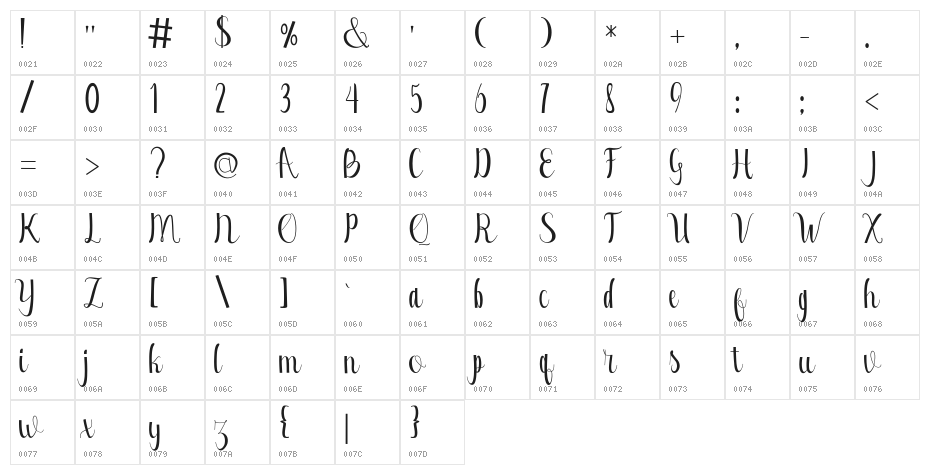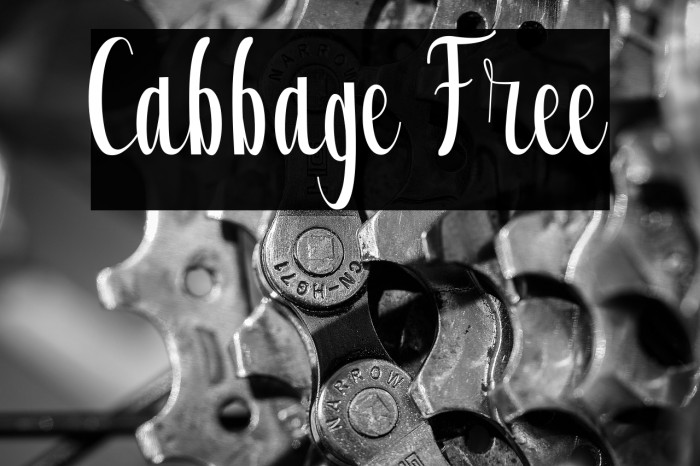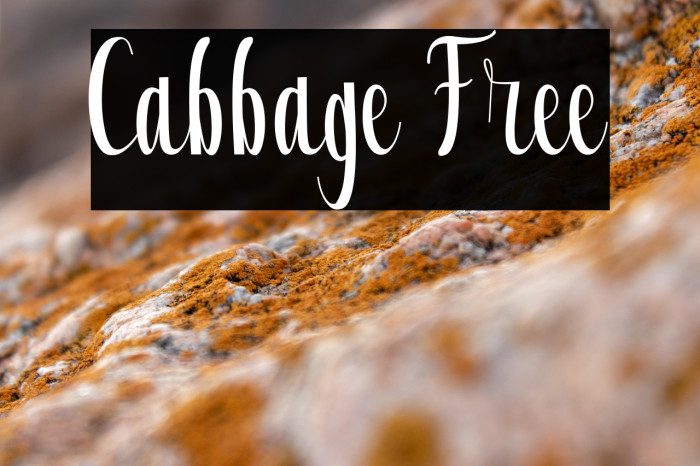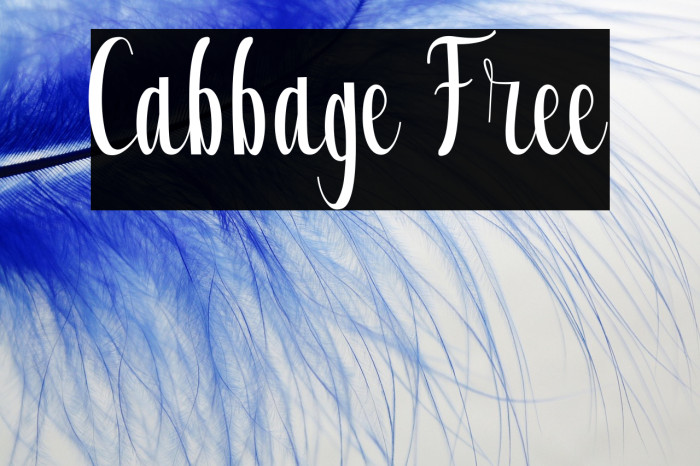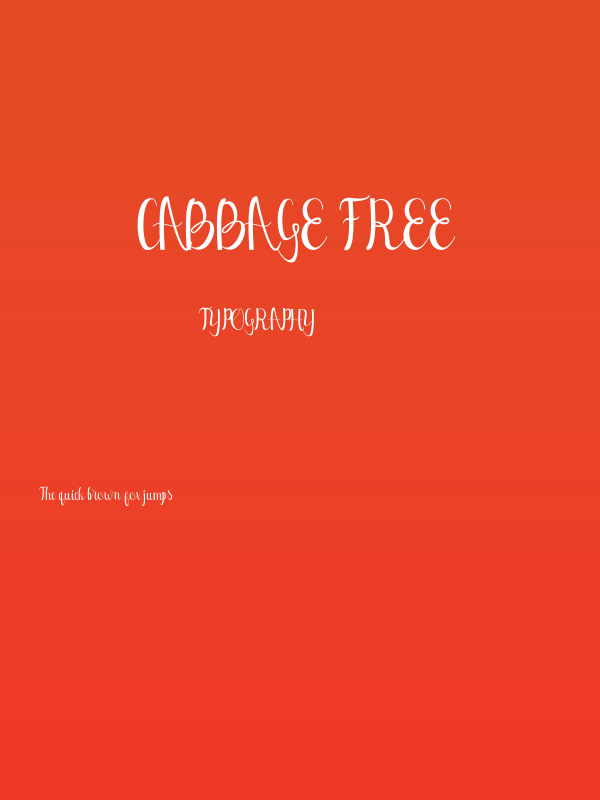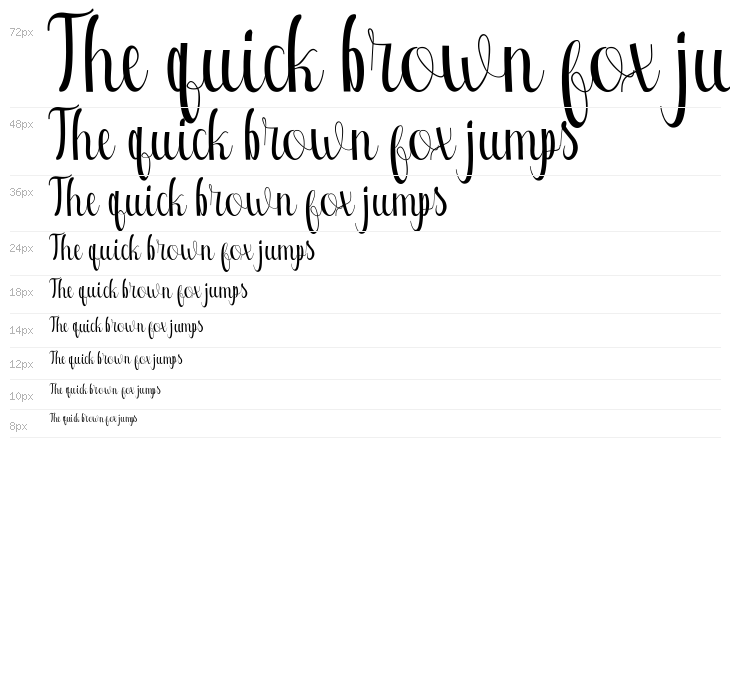
Cabbage Free Font
Cabbage Free Description
This font features a whimsical and playful design, characterized by its flowing, cursive-like strokes and varying line thickness. The uppercase letters exhibit a unique blend of elegance and informality, with elongated ascenders and descenders that add a touch of sophistication. The lowercase letters maintain a consistent style, complementing the uppercase with their own graceful curves. Numbers are clear and legible, while special characters retain the font's distinctive flair. The overall appearance is both artistic and approachable, making it suitable for creative and informal applications.
| Proposed Projects | Ideal for greeting cards, invitations, branding, and creative projects that require a touch of elegance and playfulness. |